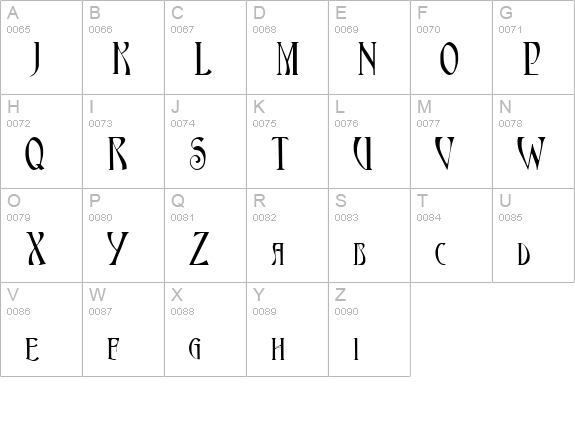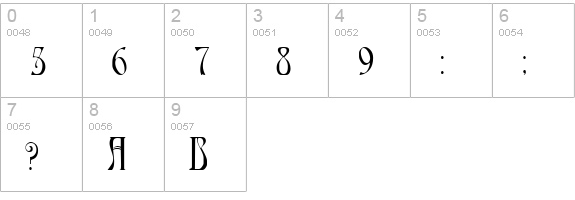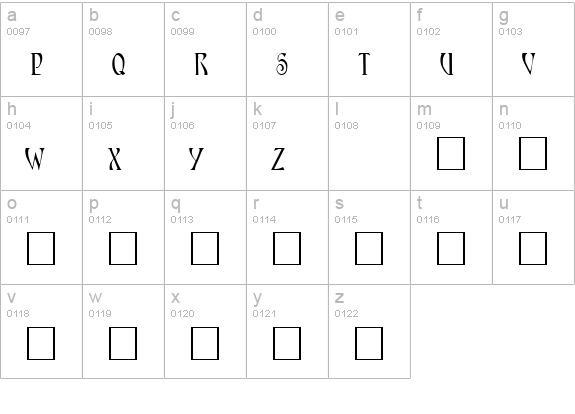
AmbrosiaCap Font Details
AmbrosiaCap font is a stylish and elegant typeface that exudes sophistication and charm. With its graceful curves and intricate details, this font is perfect for adding a touch of luxury to your designs. Featuring a classic yet modern look, AmbrosiaCap is versatile and can be used for a variety of projects, from branding to invitations. Best of all, AmbrosiaCap is available for free download at FontsMarket.com. This means that you can easily access this beautiful font and use it in your projects without any cost. Don't miss out on the opportunity to enhance your designs with the timeless beauty of AmbrosiaCap font. Download it today and add a touch of elegance to your creations.